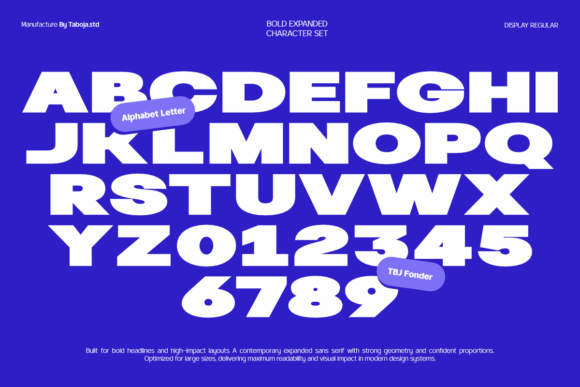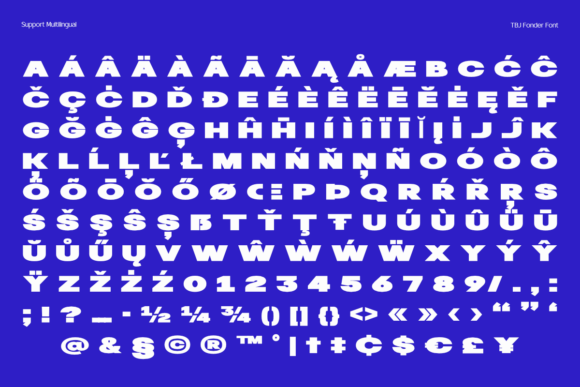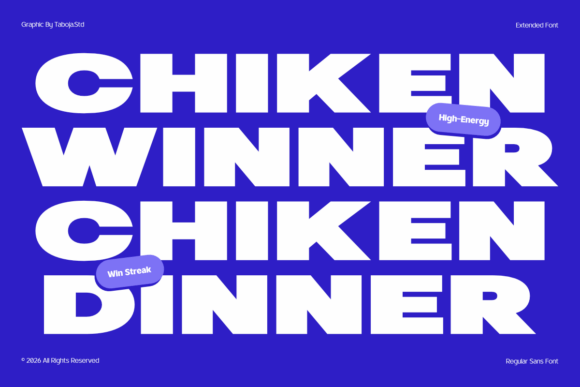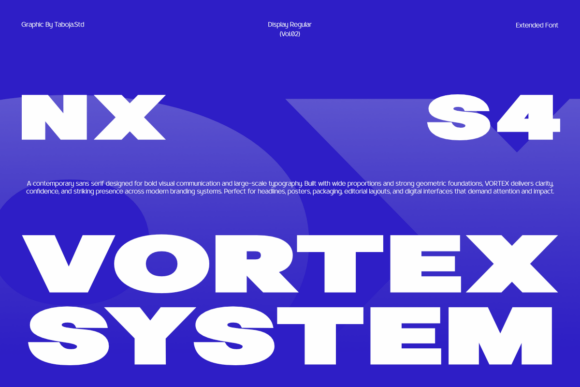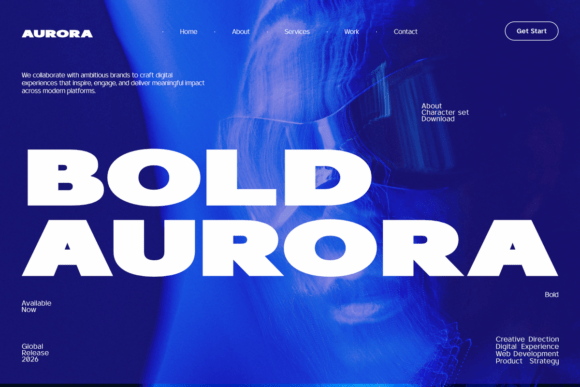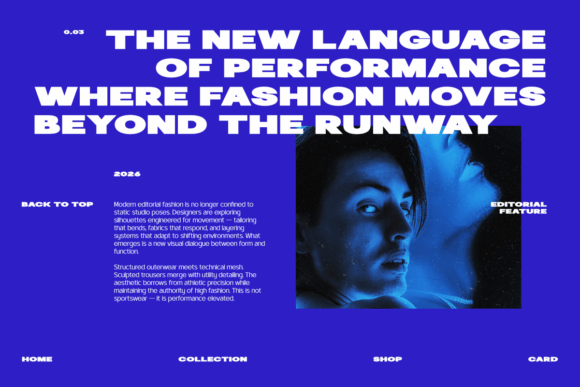
Introduction to Fonder Font
As designers, we’ve all been there – staring at a blank canvas, trying to convey the essence of our creative vision. Sometimes, it takes just the right font to elevate our ideas and make them shine. That’s where Fonder Font comes in – a game-changing, high-quality display typeface designed to make a lasting impression.
With its bold, expanded letterforms and confident geometry, Fonder Font is the perfect solution for designers seeking a strong typographic signature. Whether you’re working on a high-visibility campaign, a bold brand identity, or a creative project that demands attention, Fonder Font delivers. And the best part? It’s available for free download, making it an invaluable resource for designers and studios alike.
Fonder Font
Honest Review: Fonder Font
I recently stumbled upon the Fonder Font, a high-quality design resource that caught my attention. As a designer, I’m always on the lookout for free downloads that can elevate my creative projects.
What works well with the Fonder Font is its versatility and clean design. ✨ It has a modern aesthetic that can be easily incorporated into various design projects, from branding to digital media. The font’s transparent background makes it seamless to use in different backgrounds, adding an extra layer of flexibility.
Some of the key features that I appreciate about the Fonder Font include:
- Modern aesthetic that’s versatile and clean
One limitation of the Fonder Font is its limited font styles. ⚠️ While it’s a great starting point, it may not be suitable for projects that require a wide range of font styles.
Overall, I’m impressed with the Fonder Font’s potential and versatility. It’s a great addition to any designer’s toolkit, and I’d definitely recommend it to fellow designers looking for a high-quality, free design resource.
Fonder Font
Fonder Font is a high-quality design resource that can elevate your creative project. It’s available for free download and features a transparent background, making it versatile for various design applications.
Tips for Getting the Most Out of Fonder Font
To get the most out of Fonder Font, use it in combination with other high-quality design resources, such as images and graphics. Experiment with different font sizes, colors, and styles to create a unique and visually appealing design.
Fonder Font is suitable for a variety of creative projects, including logos, business cards, brochures, and social media graphics. Its transparent background makes it easy to layer with other design elements, creating a seamless and professional look.